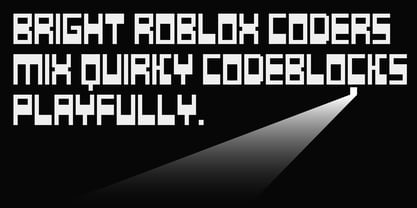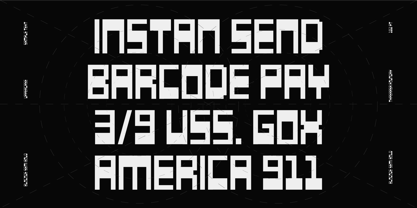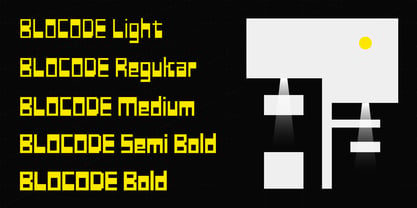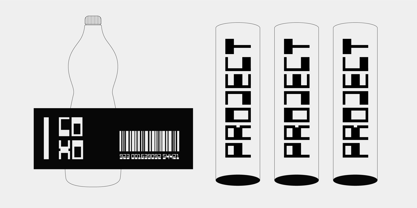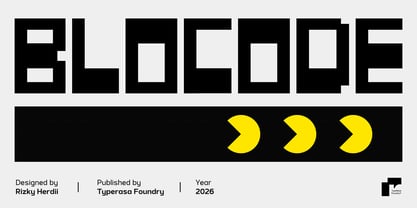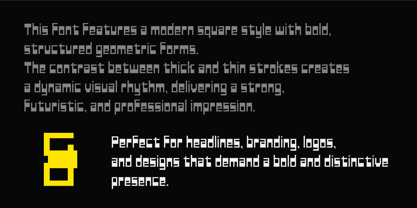
Blocode
by Typerasa
The Blocode Font Family was designed by Rizky Herdii and published by Typerasa. Blocode contains 5 styles and family package options. More about this family
BLOCODE is a bold, futuristic display typeface inspired by digital architecture, coding culture, and geometric minimalism. With strong structural logic and sharp modular construction, BLOCODE delivers a powerful visual presence that feels both technological and industrial. Each character is crafted from clean, calculated angles, creating a rhythm that is structured, confident, and unmistakably modern. This typeface is more than just a font; it is a statement. BLOCODE captures the spirit of innovation, making it perfect for brands, creators, and designers who wish to communicate strength, clarity, and a forward-thinking identity. Its block-based form and distinctive cuts give it a cyber-tech personality while maintaining excellent readability for display purposes. **Designed for Impact** BLOCODE excels in large-scale applications. Whether used for headlines, posters, esports branding, gaming visuals, tech startups, software interfaces, or futuristic merchandise, this typeface commands attention instantly. The square proportions and mechanical rhythm evoke coding environments, digital systems, and structured creativity—making it highly suitable for tech-driven industries. From Roblox-inspired aesthetics to cyberpunk themes, BLOCODE bridges the gap between playful digital culture and serious technological branding. It carries a dynamic energy that feels alive on screen and powerful in print. **Five Weights for Maximum Flexibility** BLOCODE comes in five carefully crafted weights: Light, Regular, Medium, Semi Bold, and Bold. Each weight is engineered to maintain consistency in structure while offering flexibility in hierarchy and contrast. The lighter weights provide a sleek and modern touch for subtitles and secondary text, while the heavier weights deliver maximum visual impact for headlines and logos. This range allows designers to create balanced typographic systems while preserving a strong visual identity. **Technical Character & Unique Personality** What sets BLOCODE apart is its distinctive modular cuts and sharp internal corners. The squared counters and calculated openings create a futuristic coding aesthetic, making it feel like it belongs inside a digital grid. The letterforms are compact yet expressive, bold yet controlled. The precision of its geometry ensures visual harmony across all characters. It feels engineered rather than drawn—making it ideal for branding that emphasizes innovation, performance, and structure.
Designers: Rizky Herdii
Foundry: Typerasa